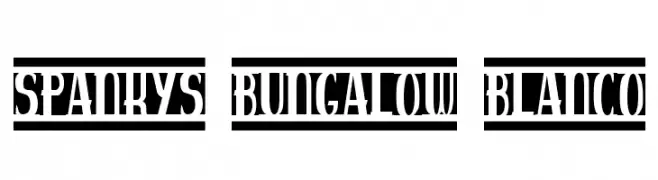
A playful, handwritten font with tall, expressive letterforms.
A bold, slab serif font with strong, uniform strokes for impactful design.
A bold, stencil-like font with thick, blocky strokes and sharp edges.
A bold, italicized font with a dynamic and energetic style.
Silhouette-based decorative font with theatrical character poses.
A bold, boxed decorative font with integrated clock illustrations.
A bold, distressed typewriter-style font with a vintage, grunge aesthetic.